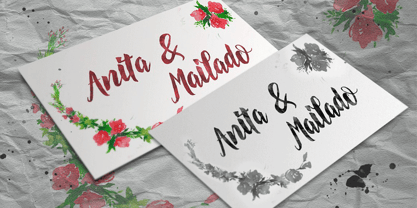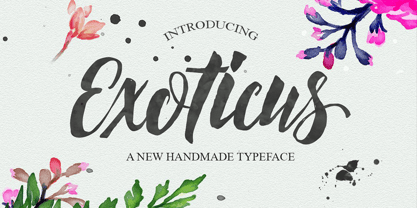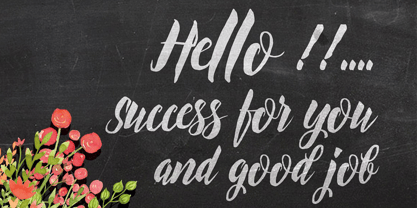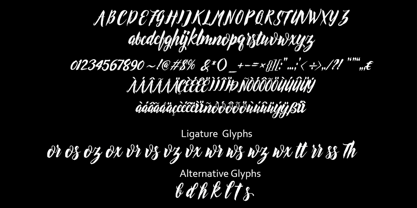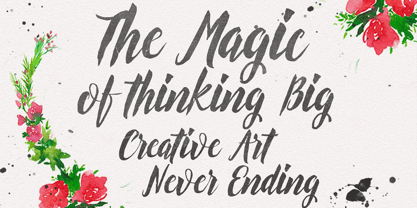
Exoticus
Exoticus – Brush Script Font
Exoticus is a bold and adventurous brush script font inspired by the freedom of hand-painted lettering and the energy of creative expression. With its dynamic brush strokes, organic texture, and flowing character connections, Exoticus delivers a powerful handcrafted look that instantly captures attention.
Designed to make a statement, Exoticus combines artistic movement with modern versatility. Its expressive letterforms create a vibrant and authentic appearance, making it perfect for branding, logos, posters, packaging, social media content, apparel designs, and eye-catching headlines.
Whether you're creating a tropical-inspired brand, a bold marketing campaign, or stylish typography artwork, Exoticus brings creativity, personality, and visual impact to every project.
Features
• Authentic brush script style
• Bold handcrafted strokes
• Natural brush texture
• Smooth letter connections
• Uppercase and lowercase characters
• Numerals and punctuation
• Ligatures and stylistic alternates
• Multilingual support
• Suitable for print and digital applications
Why Choose Exoticus?
Exoticus is designed for creatives who want typography with character and energy. Its bold brush style creates a strong visual presence while maintaining the natural beauty of handcrafted lettering, making every design feel unique and memorable.